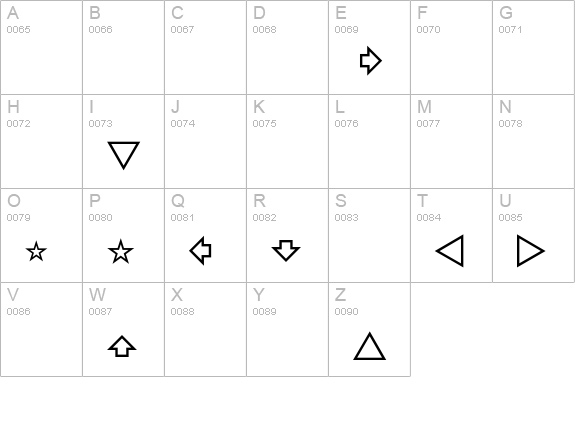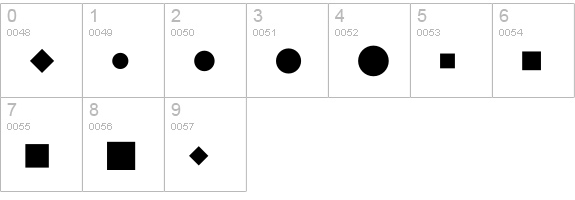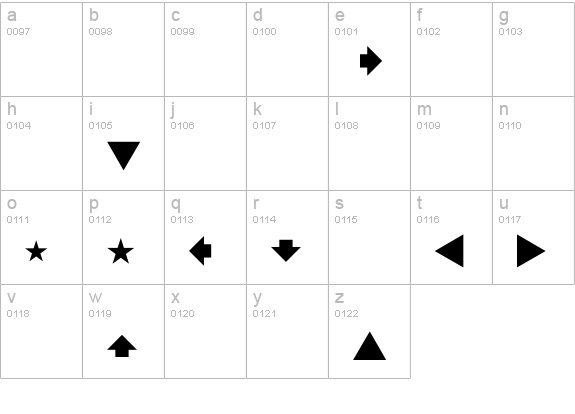
Berthold Pi-font is a versatile and elegant typeface that strikes the perfect balance between modernity and classic design. With its clean lines and geometric shapes, this font exudes sophistication and professionalism. Whether used for headlines, body text, or branding, Berthold Pi-font adds a touch of refinement to any project. What sets Berthold Pi-font apart is that it is not only stylish and functional but also free to download. That's right, you can access this premium font at no cost on FontsMarket.com. Perfect for designers, creatives, and typographers looking for a high-quality font without breaking the bank, Berthold Pi-font offers endless possibilities for your next project. Impress your audience with the timeless elegance of Berthold Pi-font and elevate your designs to new heights. Download it for free today and unlock the potential of this exceptional typeface.